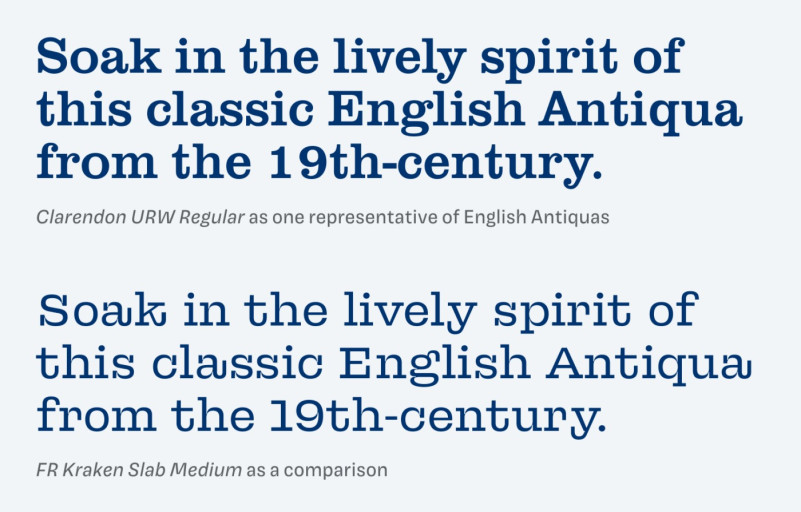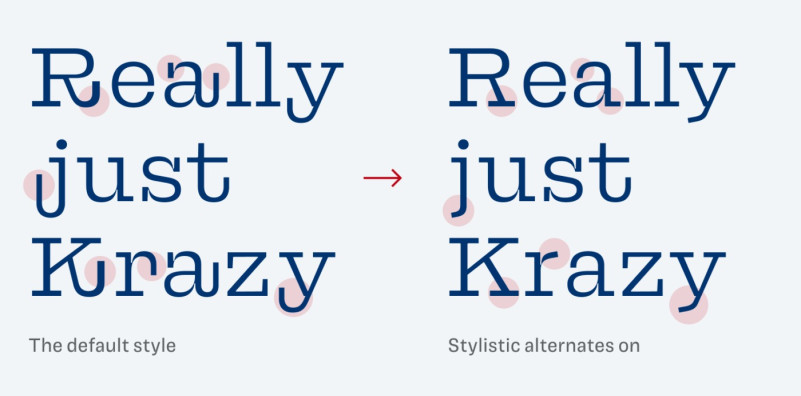
FR Kraken Slab Font
FR Kraken Slab Font is a mild-mannered monster of a typeface with a sturdy skeleton, characteristic features and a powerful personality.
It is a contemporary design inspired by the raw and lively looks of the English Antiques of the early 19th century. FR Kraken Slab carries the spirit of those models but delivers more than just a digital reproduction of any particular design from that period. It captures and re-creates the character of a style; it is like a collection of afterimages tuned into images once again, a tale truthfully re-told.
Love is in the air … the sturdy serifs of FR Kraken Slab grabbed my heart and hold it tight. This typeface designed by Béla Frank is confident, playful and shows strong personality. In the bold weights it is loud and strong, in the light weights, it can be gentle. But it never loses its uniqueness.
At first sight, you might say it does not look that modern, probably reminding you of the wild west or retro bulletins. That’s no coincident. The typeface was inspired by the lively and raw 19th-century English Antiquas, like Clarendron. What FR Kraken Slab does extremely well is captivating that spirit, while moving it to contemporary design with less contrast, and more characteristic features.
The most striking features are the bent and extended strokes at the end of many letters, like the R, K, a, j, k, r, or t. They add to the playfulness, wildness and loudness of this typeface. Brilliant for headings, while it also can become distracting in body text. Luckily, there is a way how you can tame that typeface.
It is called stylistic alternates and makes FR Kraken Slab simpler and narrower. I activated this OpenType feature for the body text in the phone image on top.
Overall, FR Kraken Slab is a great choice for branding, a playful editorial design (maybe using the free Air weight), or an attention grabbing web design for titles and shorter paragraphs. The power of stylistic alternates makes it more versatile, so make use of them, when it makes sense.